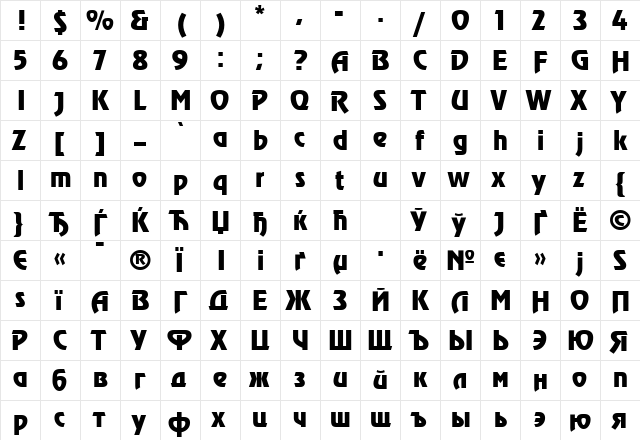
AGZeppelin Roman
Design Context for AGZeppelin Typeface
AGZeppelin is a composed and adaptable typeface that performs quietly and consistently across a wide range of design contexts.